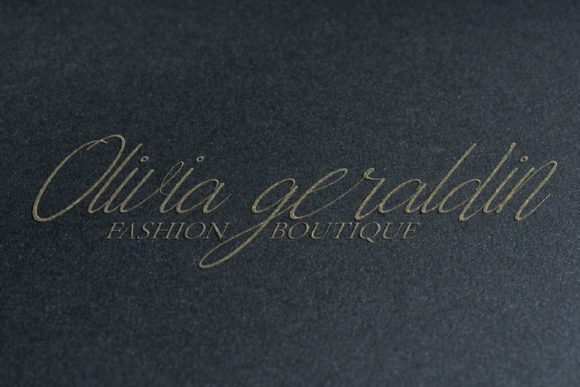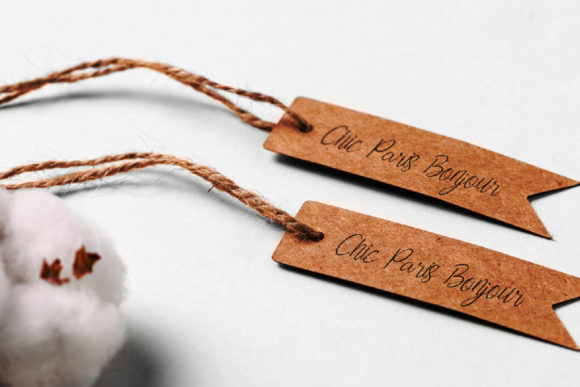
Knowingness Font
db-ku.com - Script & Handwritten -- Knowingness is a beautiful handwritten font, great for wedding, branding tittle, book, social media posts and more.